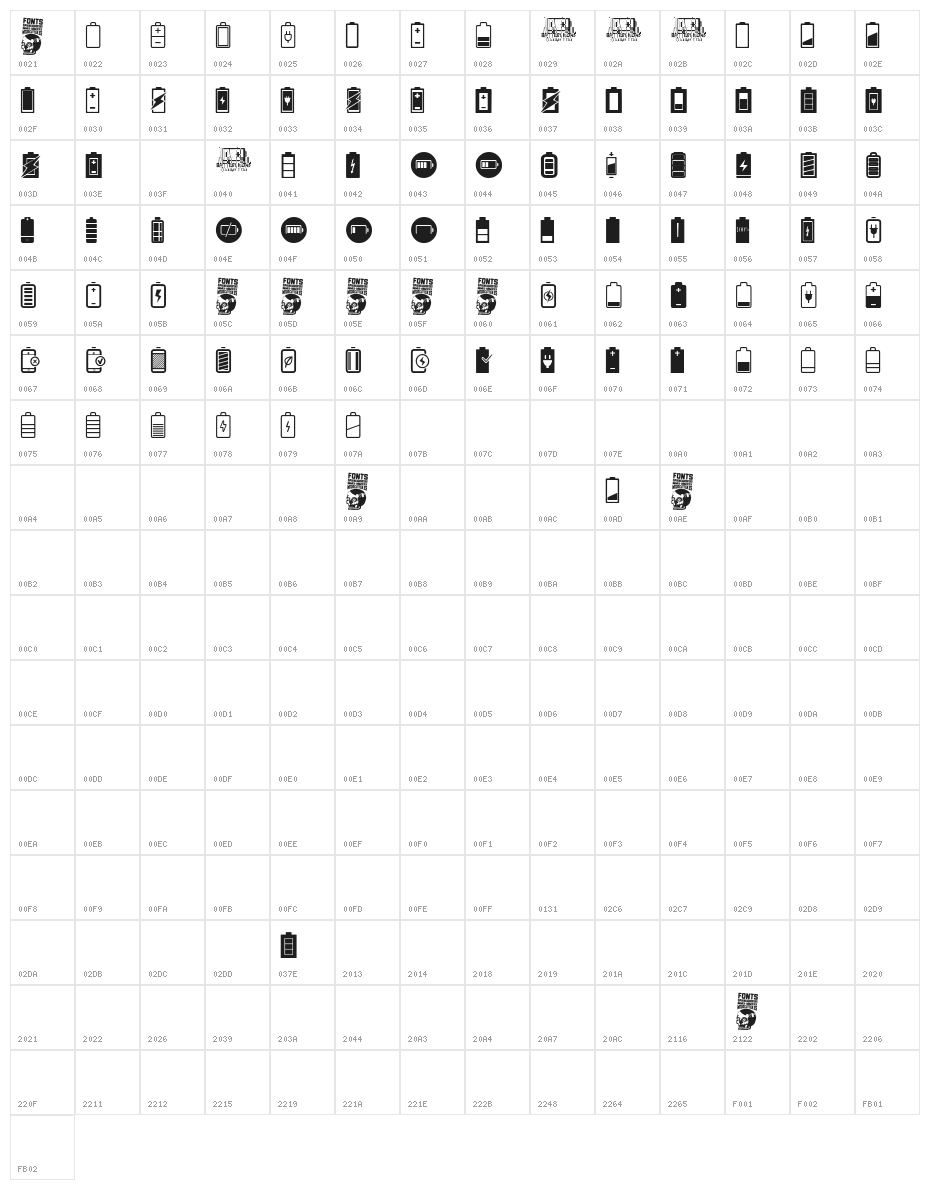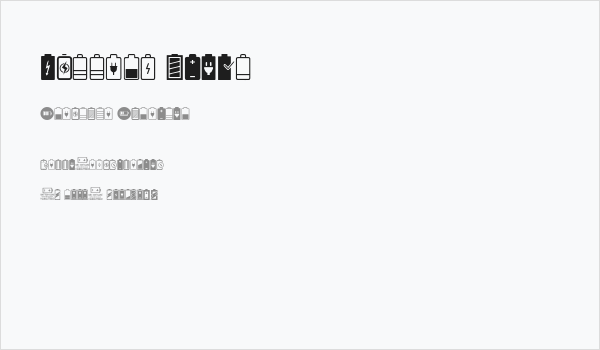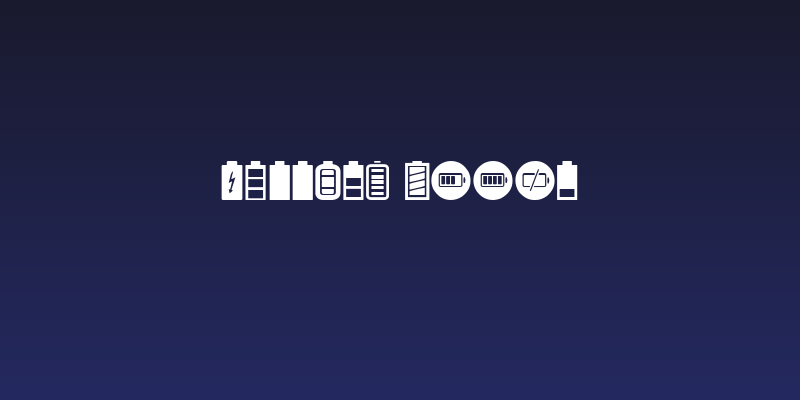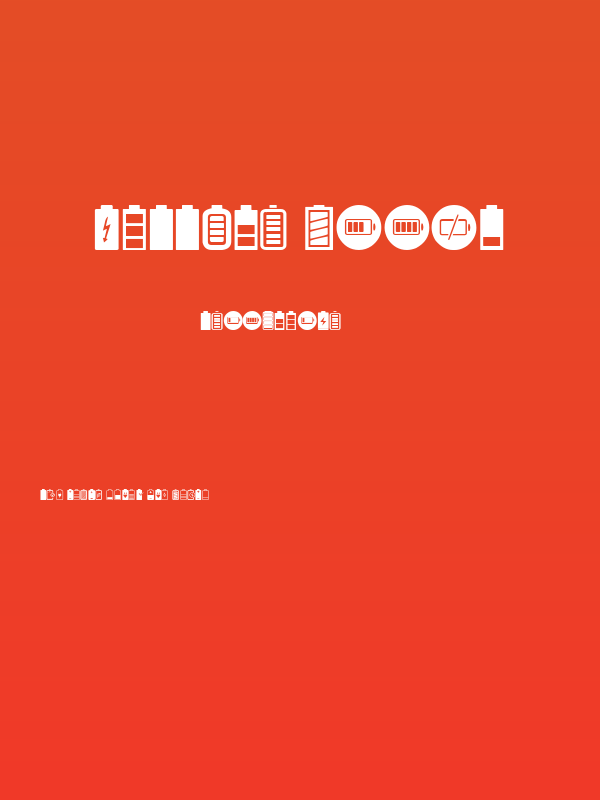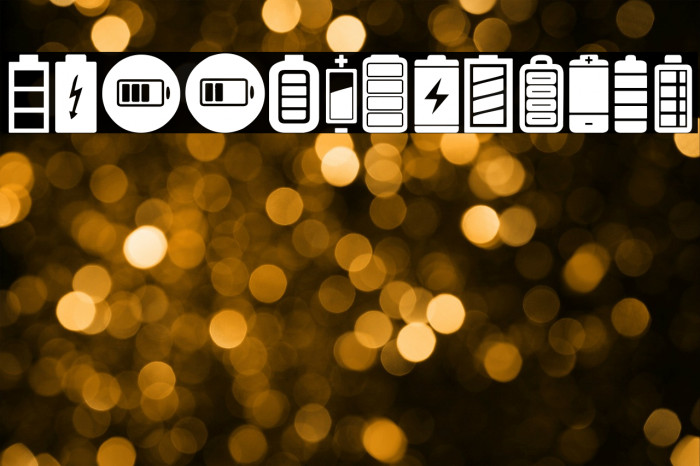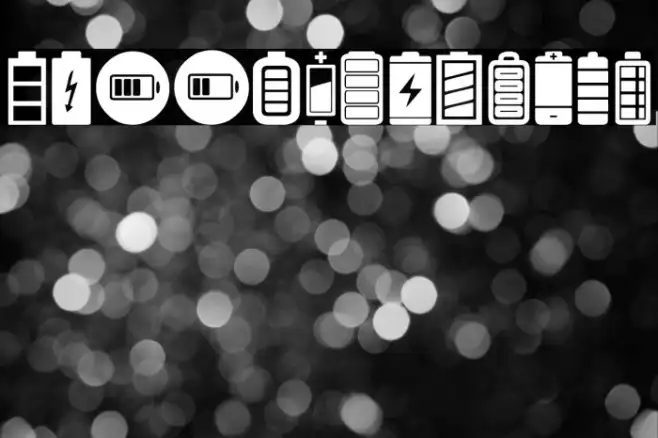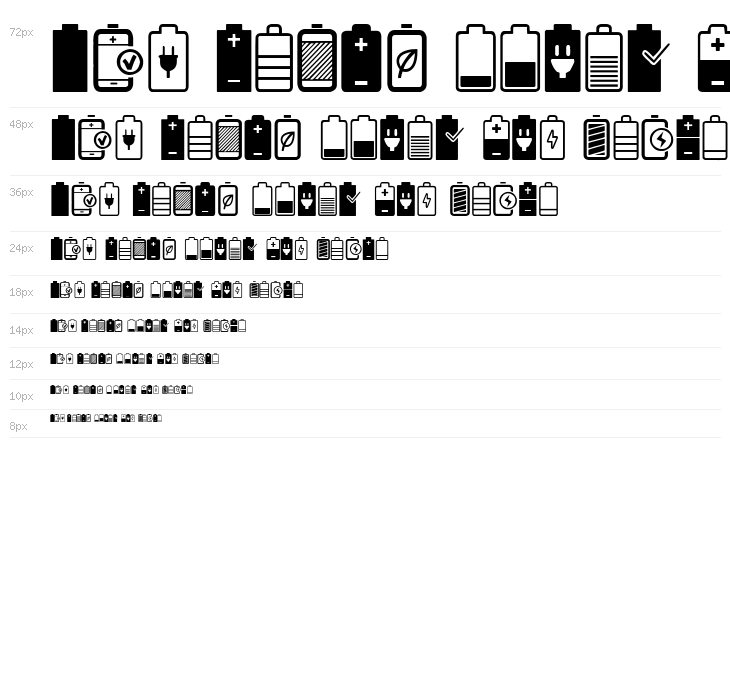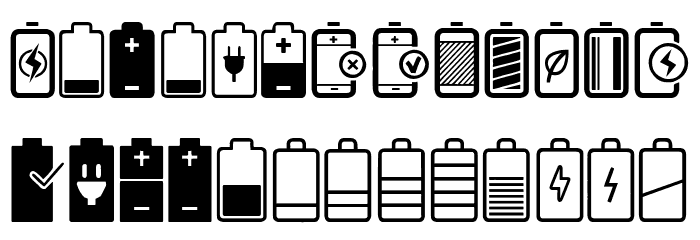
Battery Icons Font
Battery Icons Description
A collection of bold, geometric battery icons in various charge states and styles, featuring solid fills, outlines, and symbols such as lightning bolts, plugs, and check marks. The icons are highly legible, with consistent line thickness and minimal decorative elements, making them suitable for digital interfaces.
| Overall Style | Modern, Functional, Minimalist |
| Use Case | Icons, UI elements, Infographics |
| Proposed Projects | Mobile app UI, web dashboards, infographics, device status indicators, instructional materials. |